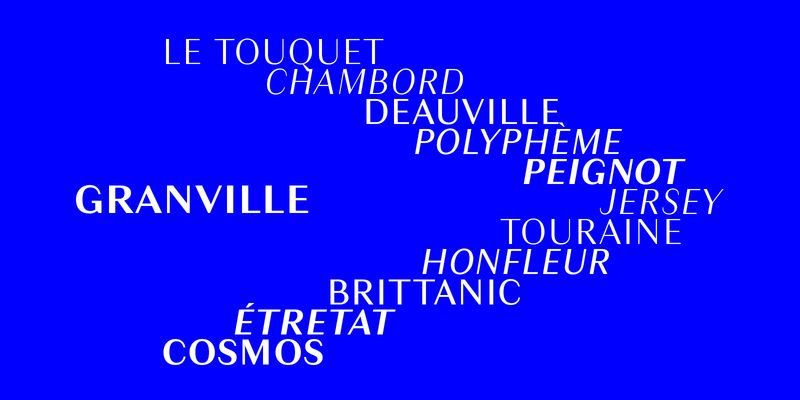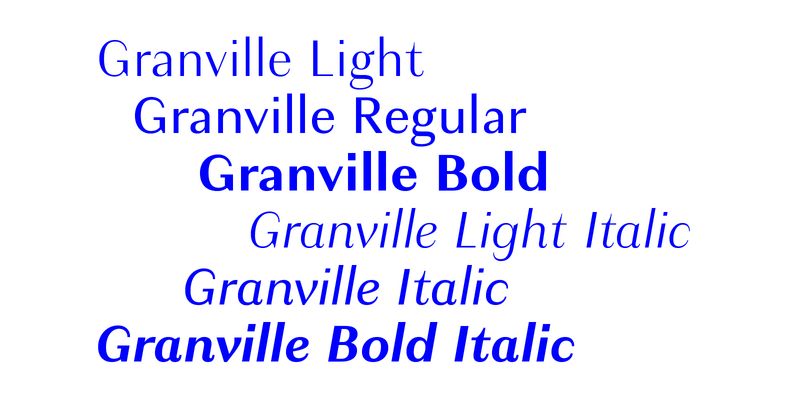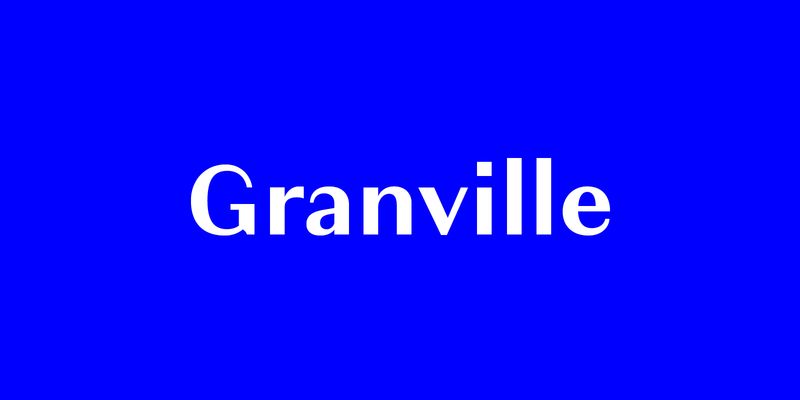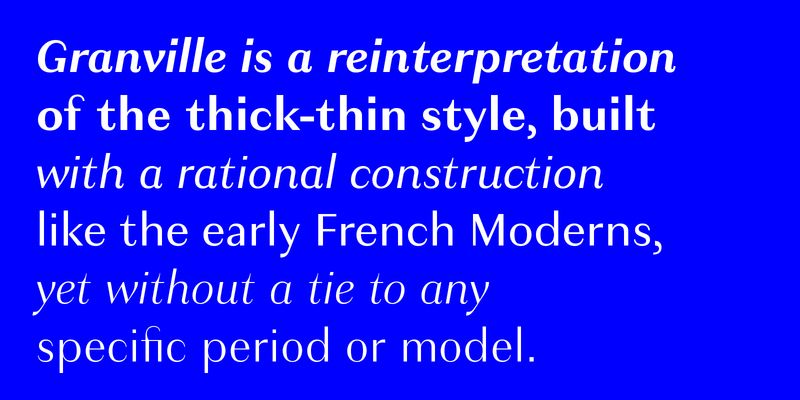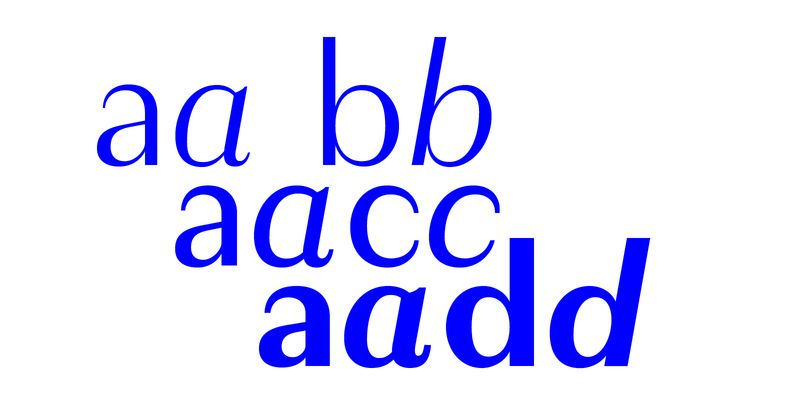
Granville is a reinterpretation of the thick‐thin style, built with a rational construction like the early French Moderns, yet without a tie to any specific period or model.